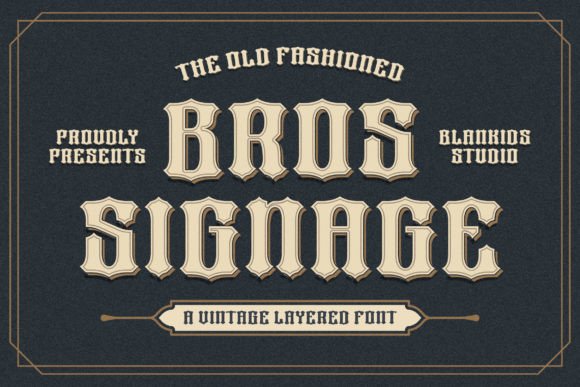
Introducing Bros Signage Font – A Blast from the Past with a Modern Twist!
Embark on a typographic journey through time with Bros Signage, the display font that captures the essence of vintage signage. Inspired by the weathered charm of yesteryear's hand-painted signs, this font bursts with character and nostalgia. Its unique layered design adds depth and texture, making it a standout choice for creating eye-catching typography art.
Step into a world where typography meets artistry. Bros Signage is not just a font; it's an invitation to explore the limitless possibilities of visual communication. Unleash your creativity and craft designs that resonate, captivate, and transport your audience. From book covers and posters to packaging and merchandise, Bros Signage effortlessly adapts to your every need.
With Bros Signage, the boundaries between vintage and contemporary blur, giving rise to a style that's both timeless and fresh. Its carefully crafted glyphs evoke a sense of history while maintaining a modern appeal. Say goodbye to ordinary typography and embrace the extraordinary with Bros Signage.
Design that Speaks Volumes:
Bros Signage is the font that speaks volumes, not just through words but through its very essence. Its bold presence commands attention, demanding to be seen and felt. Whether it's a captivating logotype or an immersive poster, Bros Signage has the power to transform your designs into unforgettable visual experiences.
A Stroke of Inspiration for the Creative Mind:
If you're an artist, designer, or creative professional, Bros Signage is your muse. Its vintage charm and modern sensibility ignite inspiration, urging you to explore new avenues of expression. Let your imagination run wild as you craft designs that evoke nostalgia, intrigue, and wonder.
Elevate Your Designs with a Vintage Touch:
In a world saturated with digital noise, sometimes it's the old-world charm that cuts through the clutter and leaves a lasting impression. Bros Signage offers that touch of vintage magic, instantly adding warmth, depth, and character to your designs. From book covers that transport readers to bygone eras to packaging that conjures up memories of simpler times, Bros Signage is the key to unlocking a world of vintage allure.